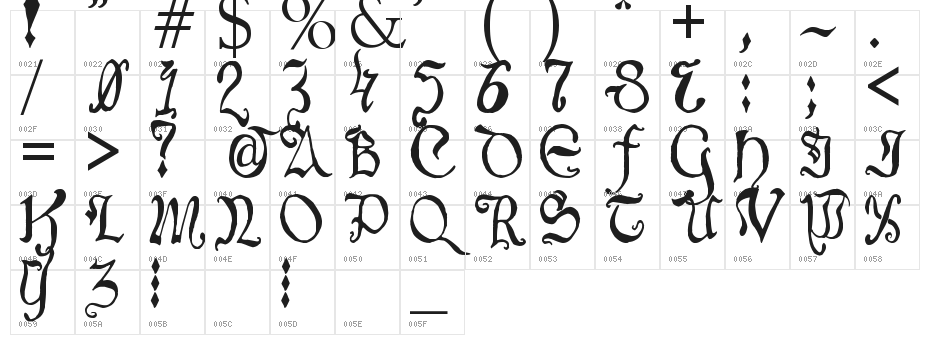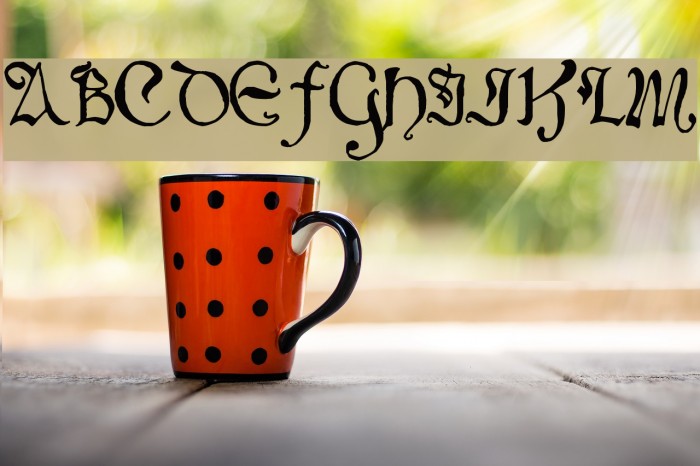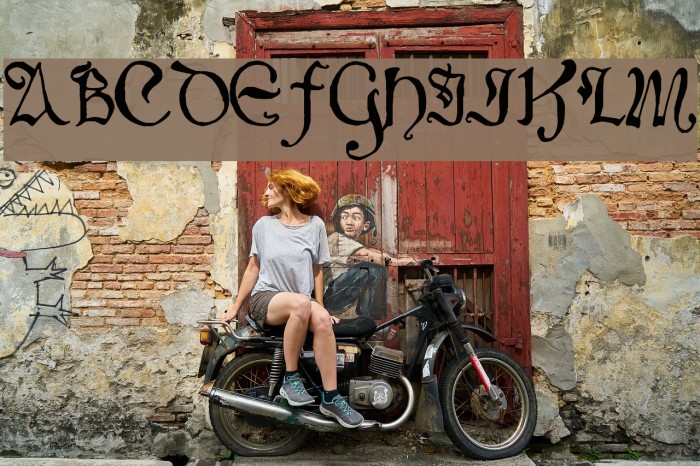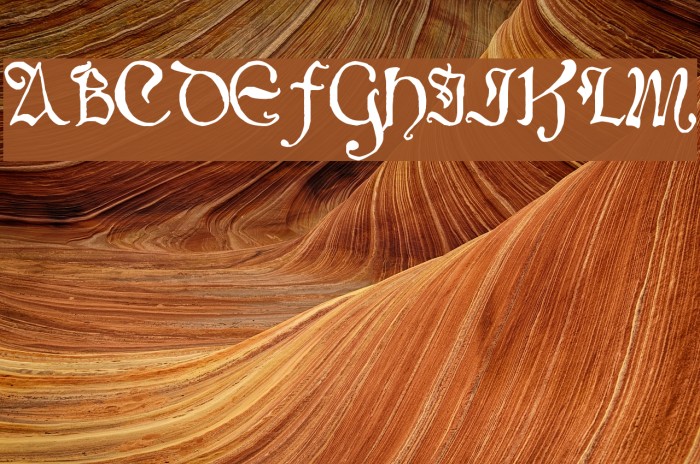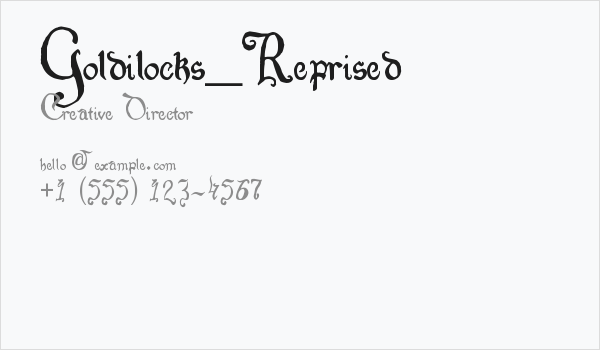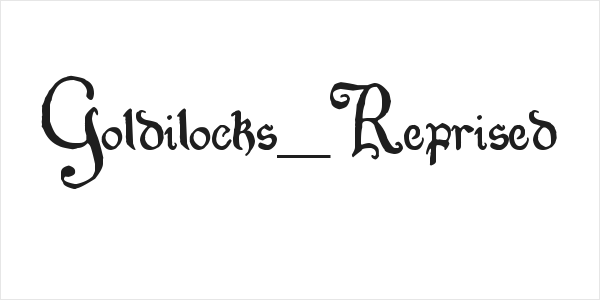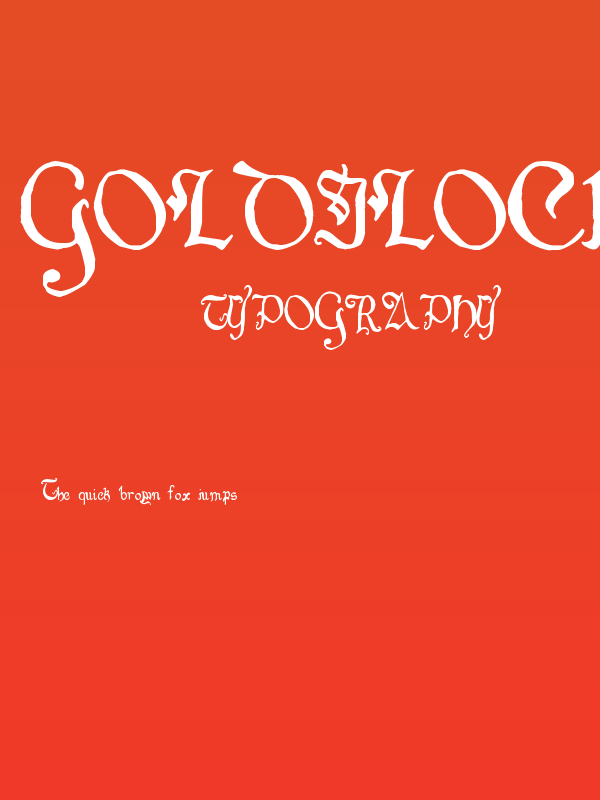
Goldilocks_Reprised Font
Goldilocks_Reprised Description
This font features an intricate and ornate design, reminiscent of traditional calligraphy with a modern twist. The uppercase letters exhibit a unique blend of sharp angles and flowing curves, creating a dynamic and eye-catching appearance. The lowercase letters maintain a consistent style, with some characters featuring distinctive flourishes that add to the overall elegance. Numbers and special characters are crafted with the same attention to detail, ensuring a cohesive look across all elements. The font's bold strokes and high contrast between thick and thin lines make it stand out, while the spacing between characters is relatively tight, enhancing its decorative appeal.